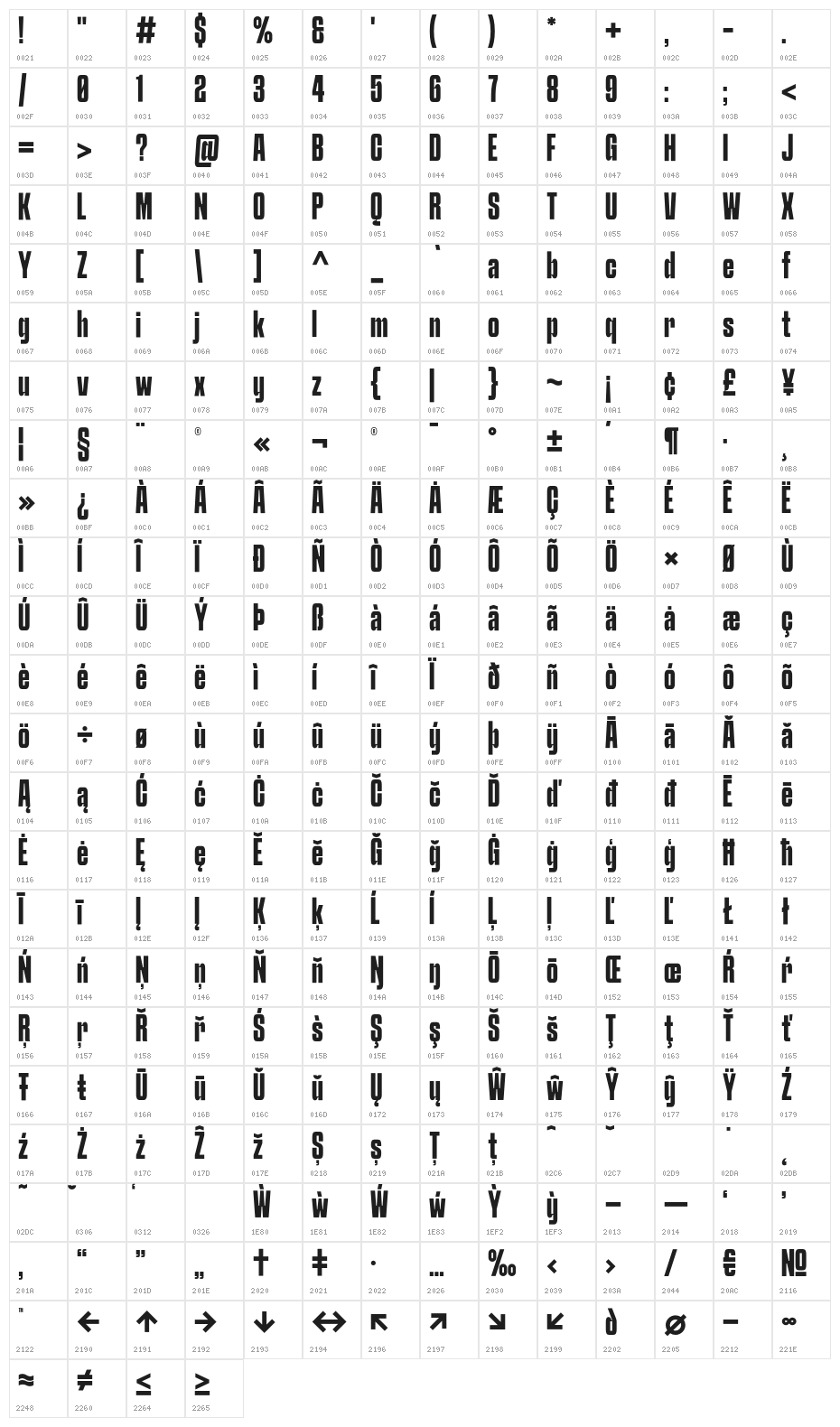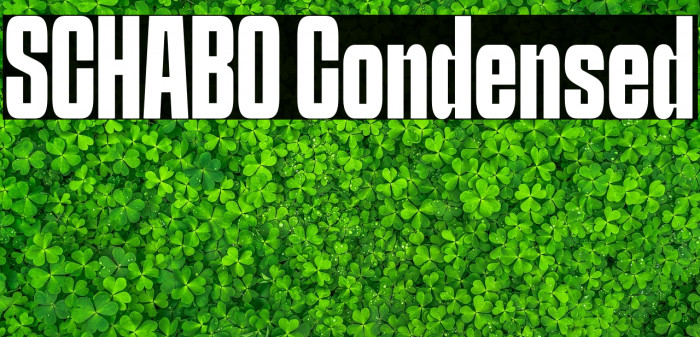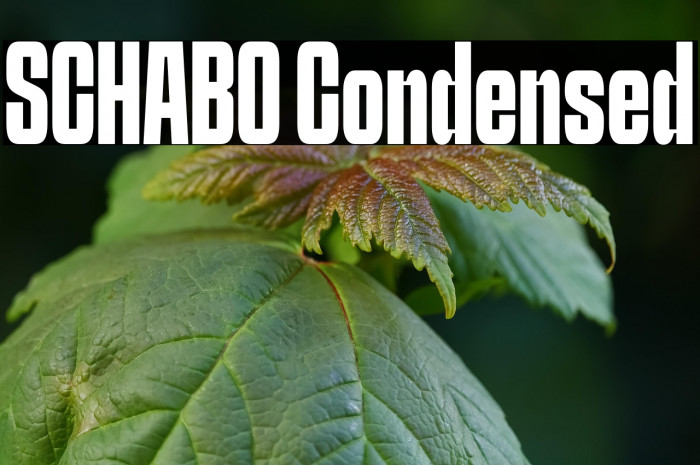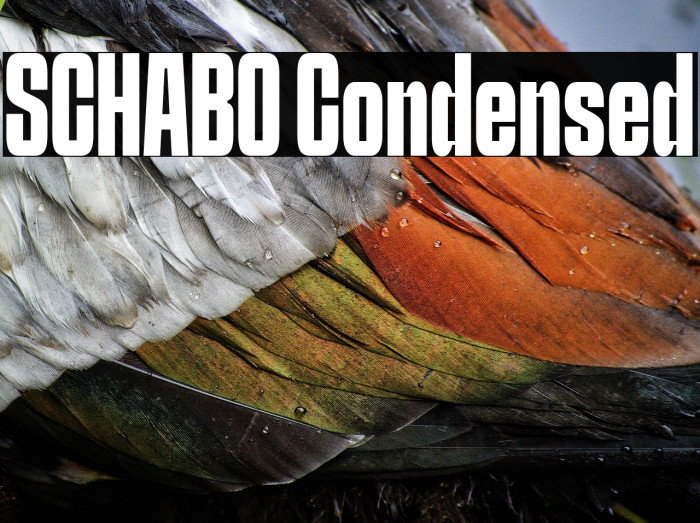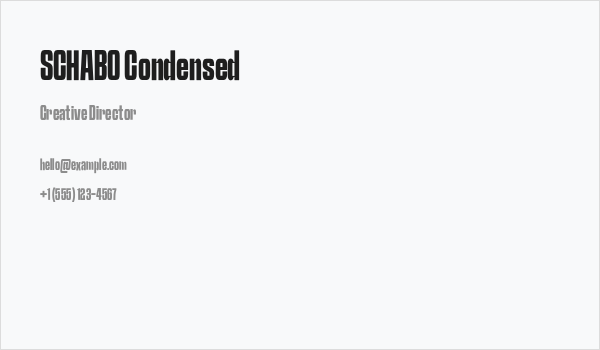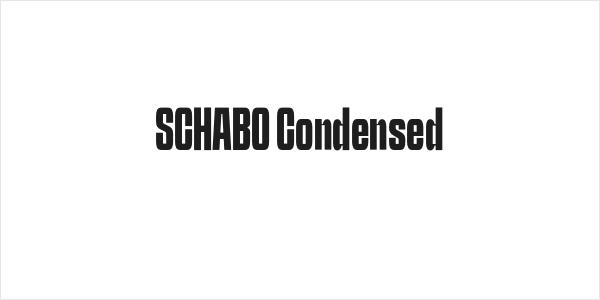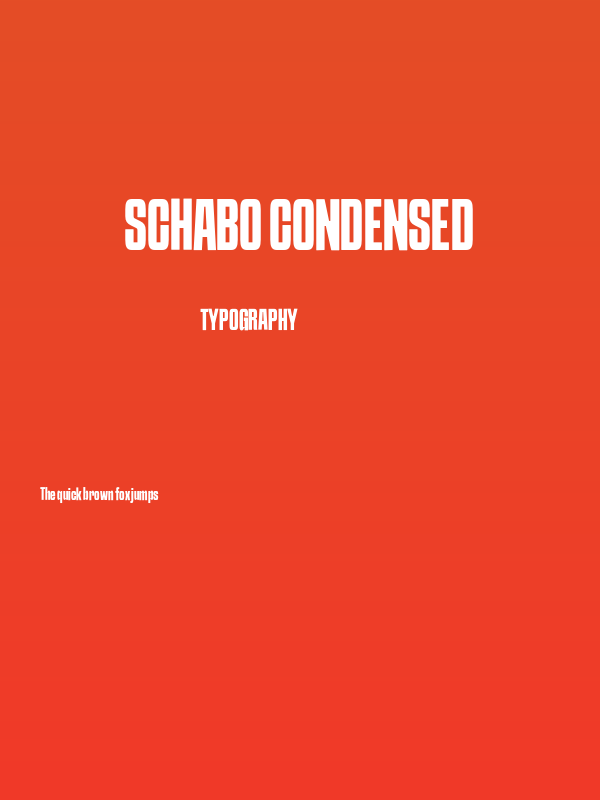
SCHABO Condensed Font
SCHABO Condensed Description
This font features a bold and impactful design with a condensed width, making it ideal for creating strong visual statements. The uppercase letters are tall and commanding, while the lowercase letters maintain a consistent height that complements the overall structure. The numerals are equally bold, ensuring clarity and emphasis in numerical data. Special characters are designed with the same boldness, providing a cohesive look across all text elements. The font's condensed nature allows for efficient use of space without sacrificing readability, making it suitable for headlines and titles.
| Proposed Projects | Ideal for posters, banners, advertising materials, and any project requiring strong visual impact. |